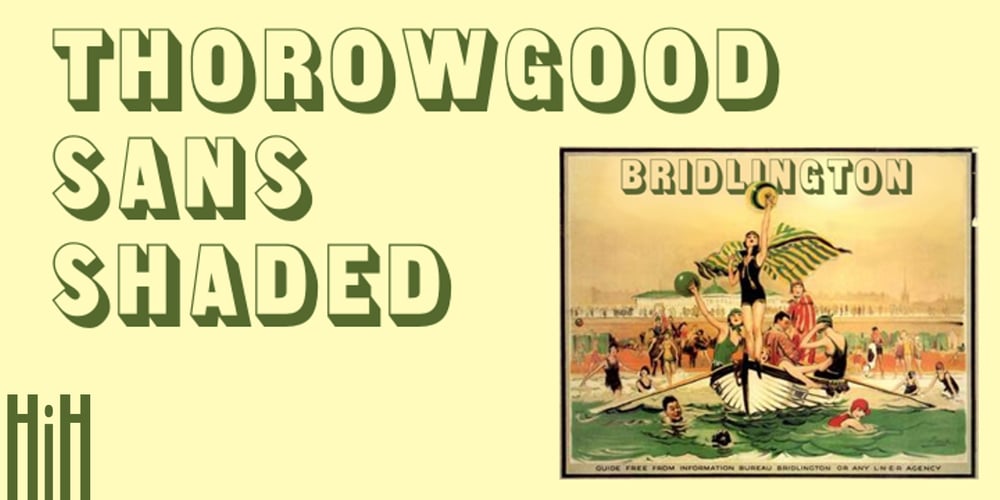
Thorowgood Sans Font Family was designed by published by HiH. Thorowgood Sans contains 1 styles and family package options. A three-dimensional all-cap font for title use, Thorowgood Sans Shaded was released by the Fann Street Foundry of W. Thorowgood & Co. in 1839. Interestingly, it more closely resembles Figgins’ Four-Line Emerald Sans-Serif Shaded of 1833 than Fann Street’s own Grotesque Shaded of 1834 (with light and shadow reversed). The idea of a shaded font is of an outline font whose letters have each been extruded through a die and then viewed from the lower right to reveal the third dimension. That third dimension has also been referred to as a shadow. Vincent Figgins’ 1815-release of a shaded serif typeface was the first known of many shaded faces, as the other foundries rushed to bring out their own versions. Thorowgood Sans Shaded may be gainfully used today as a eye-catching headline font, just as it was so popularly used in the early nineteenth century. To assist with the usual all-cap letter-spacing problem, the following pre-kerned pairs are included: AT, AV, AW and AY. Be sure to download the Type Specimen showing the full character set, as well as a sample text. Live large – use it boldly.